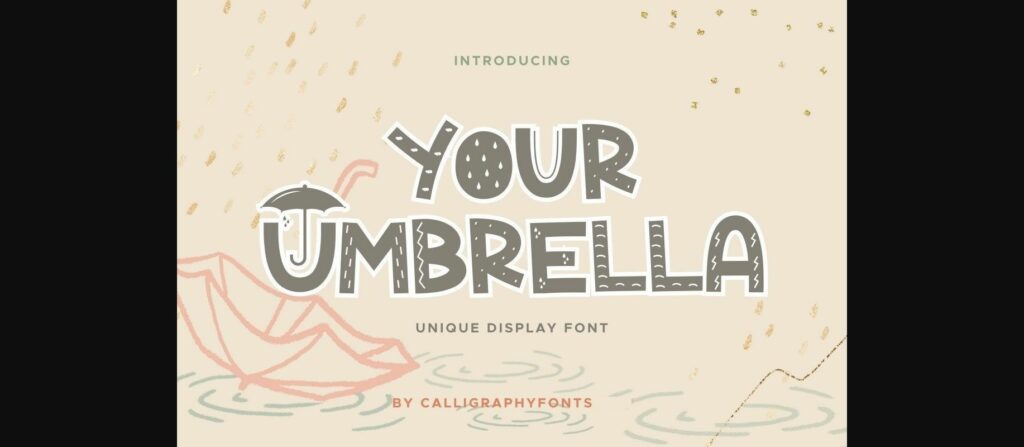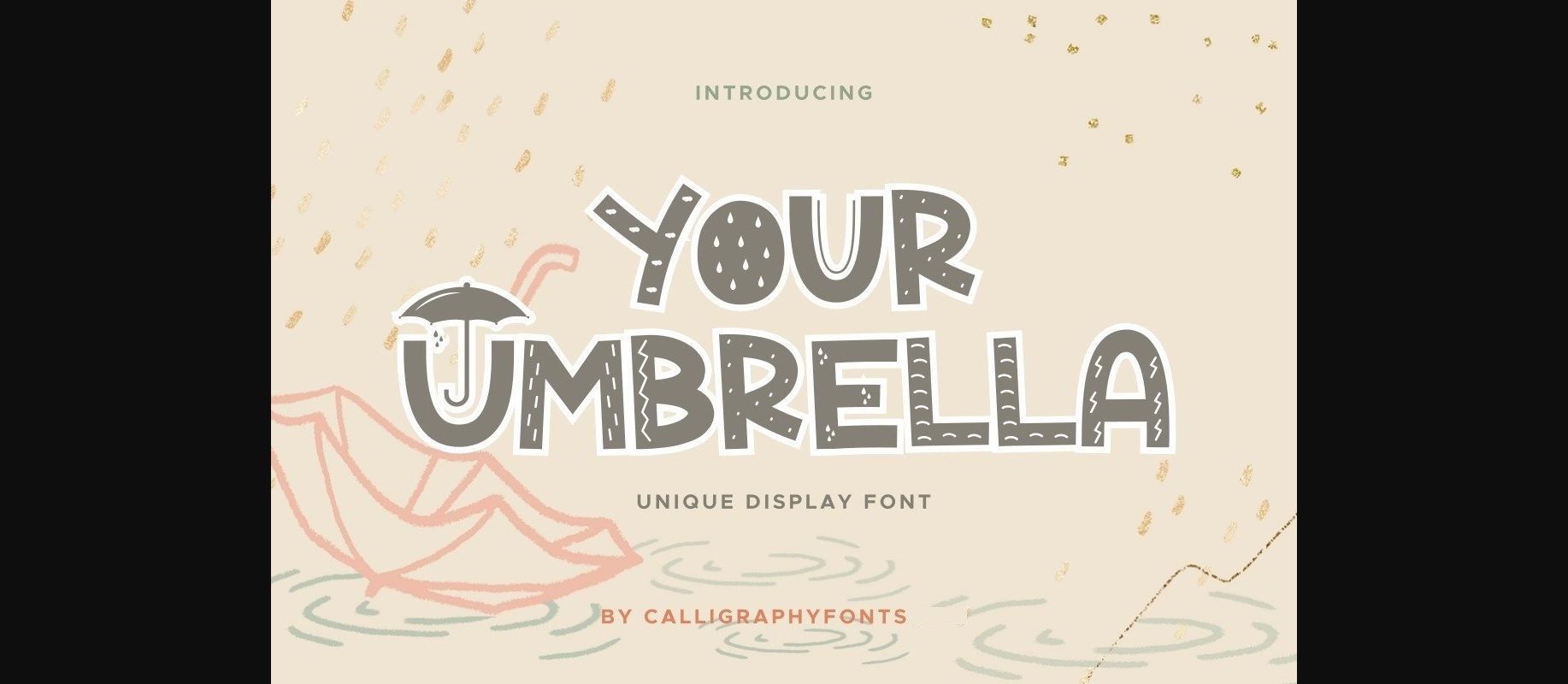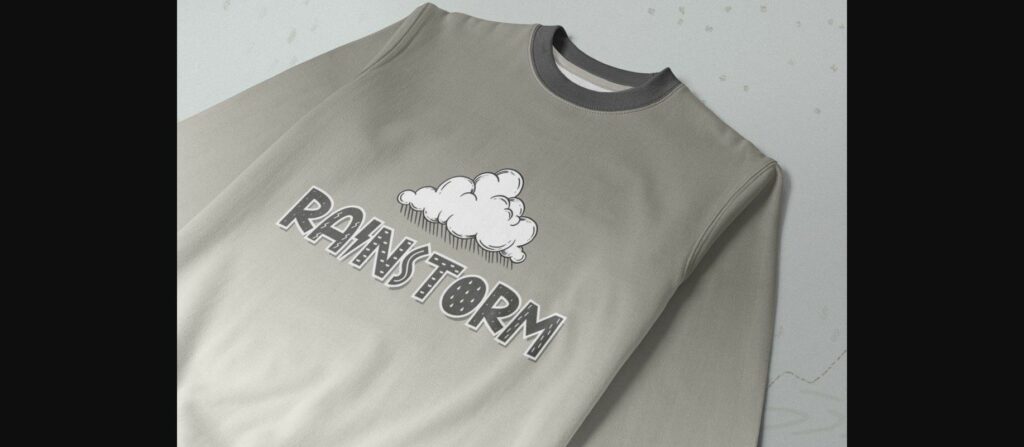
About Your Umbrella Font
Your Umbrella is a decorative font inspired by raindrops that fall and flow. This font would be perfect for industries that are related to kids, fashion, logo brands, labels, crafts, school things, publishing, printing, and anything that requires unique and funny styles.